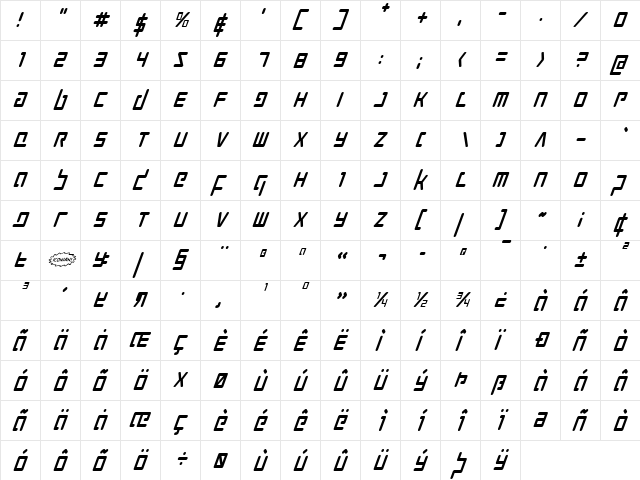
Prokofiev Condensed Italic Font Preview
Design Context for Prokofiev Condensed Italic Typeface
Prokofiev Condensed Italic is a composed and adaptable typeface that performs quietly and consistently across a wide range of design contexts. The dynamic lean of this cut emphasises speed and emphasis in any layout. Its narrow stance lets it pack a punch even in space-constrained designs.